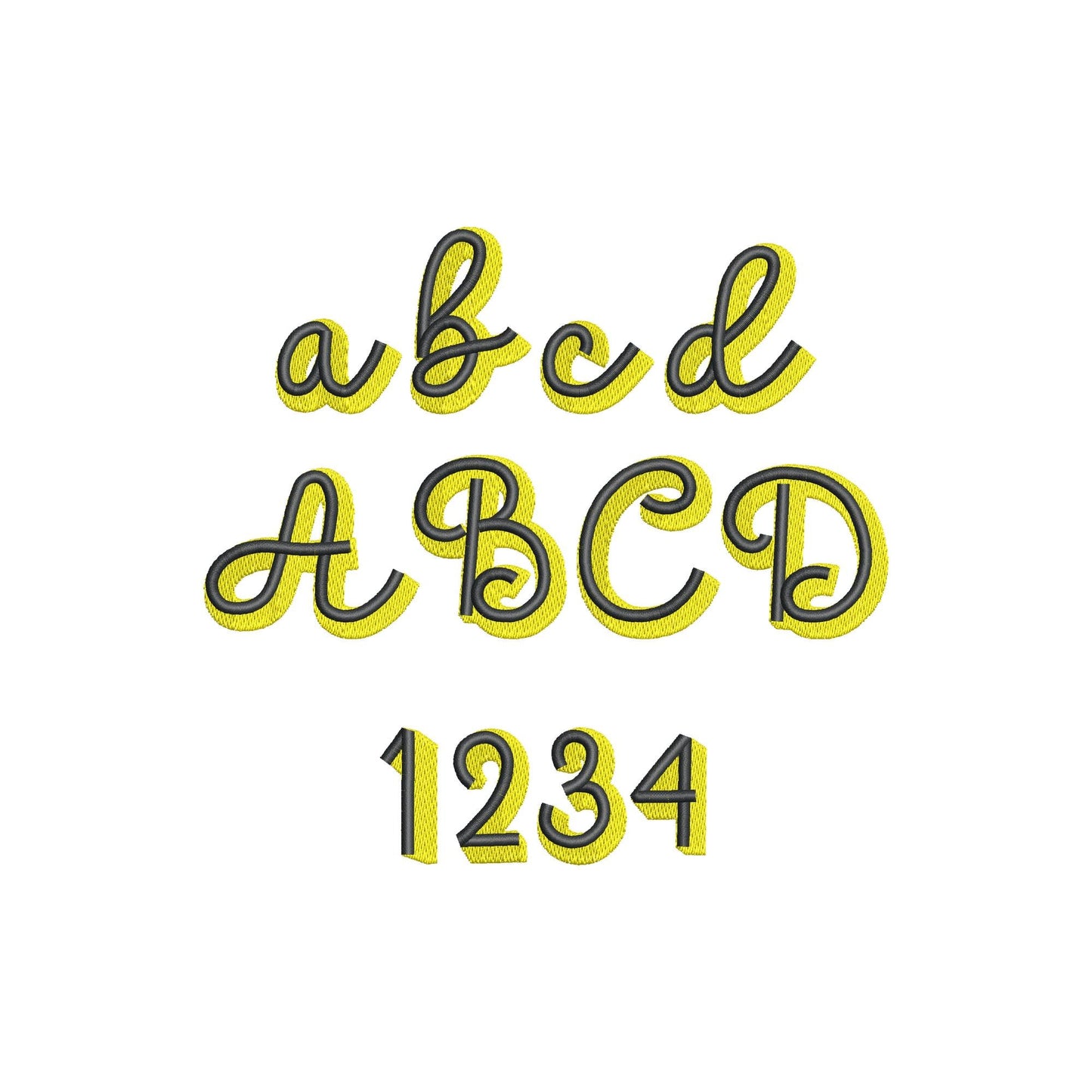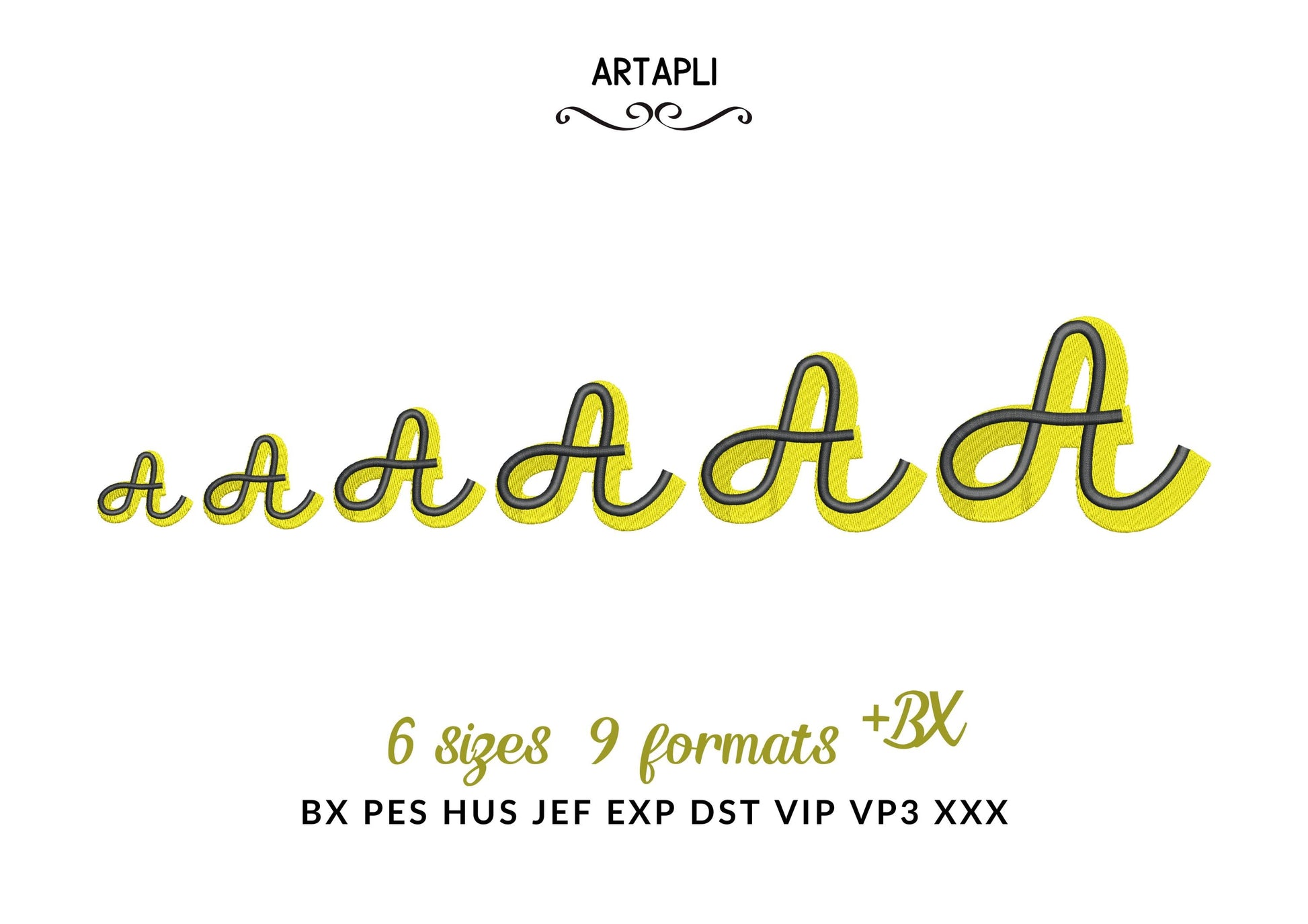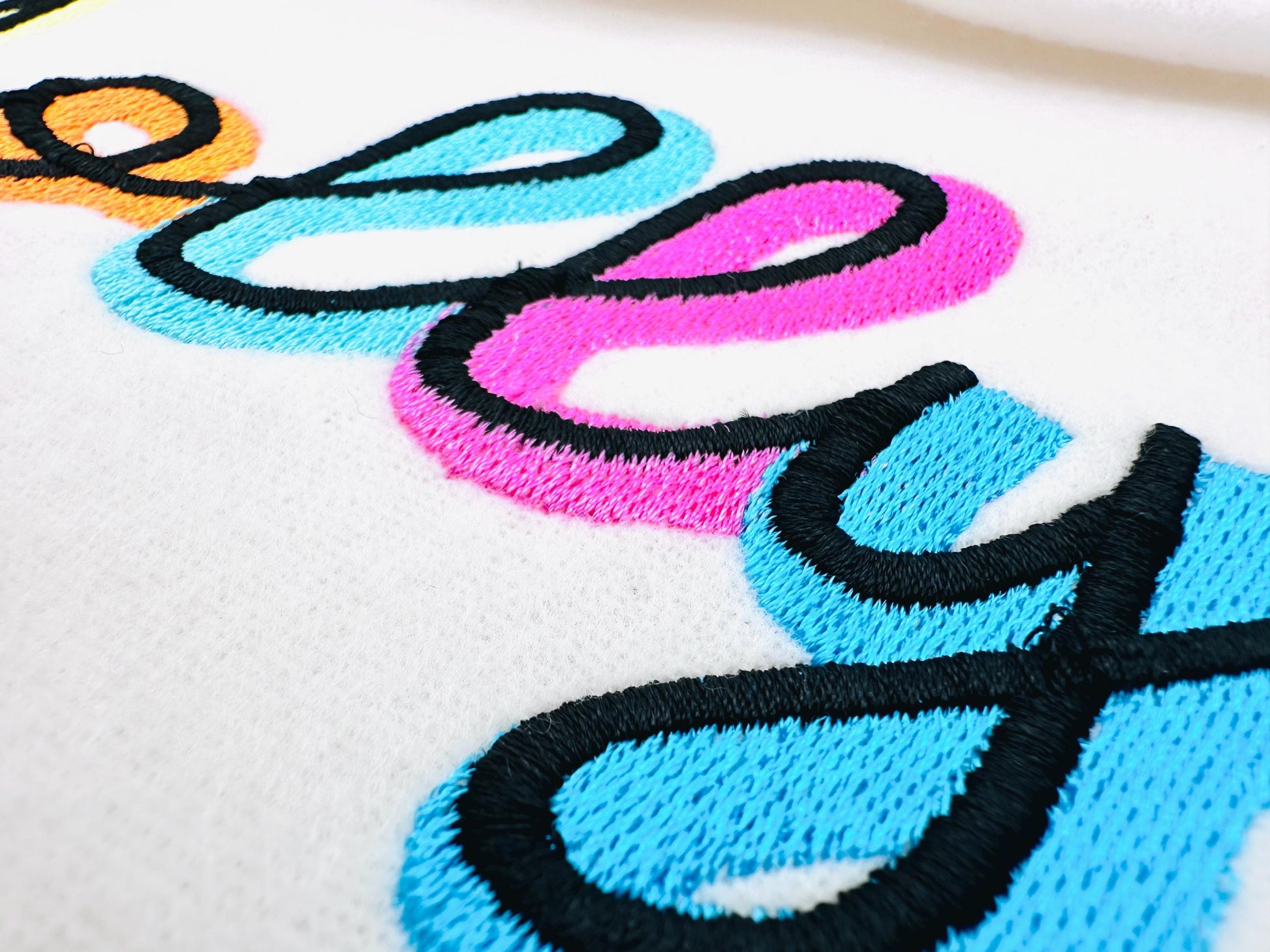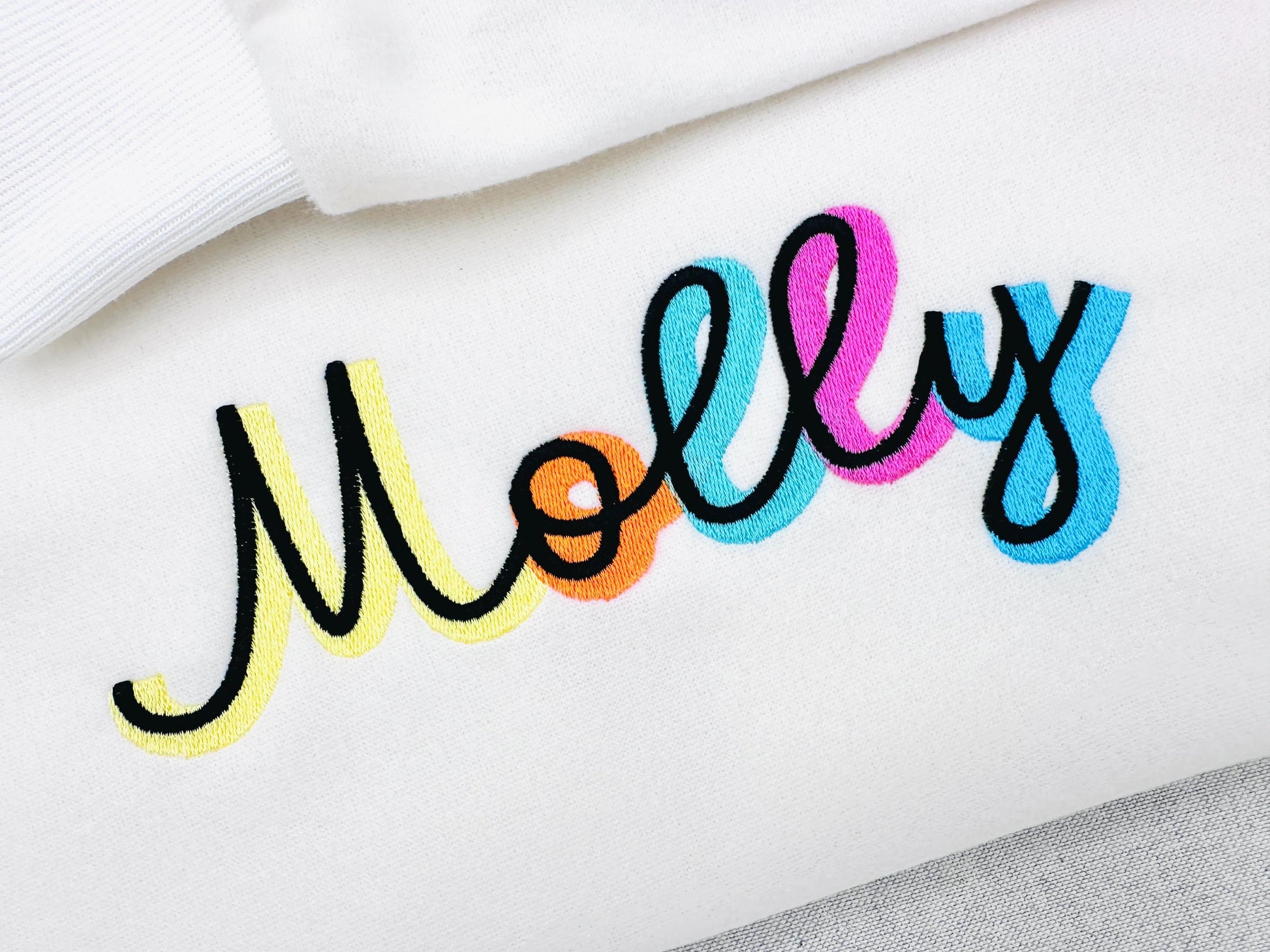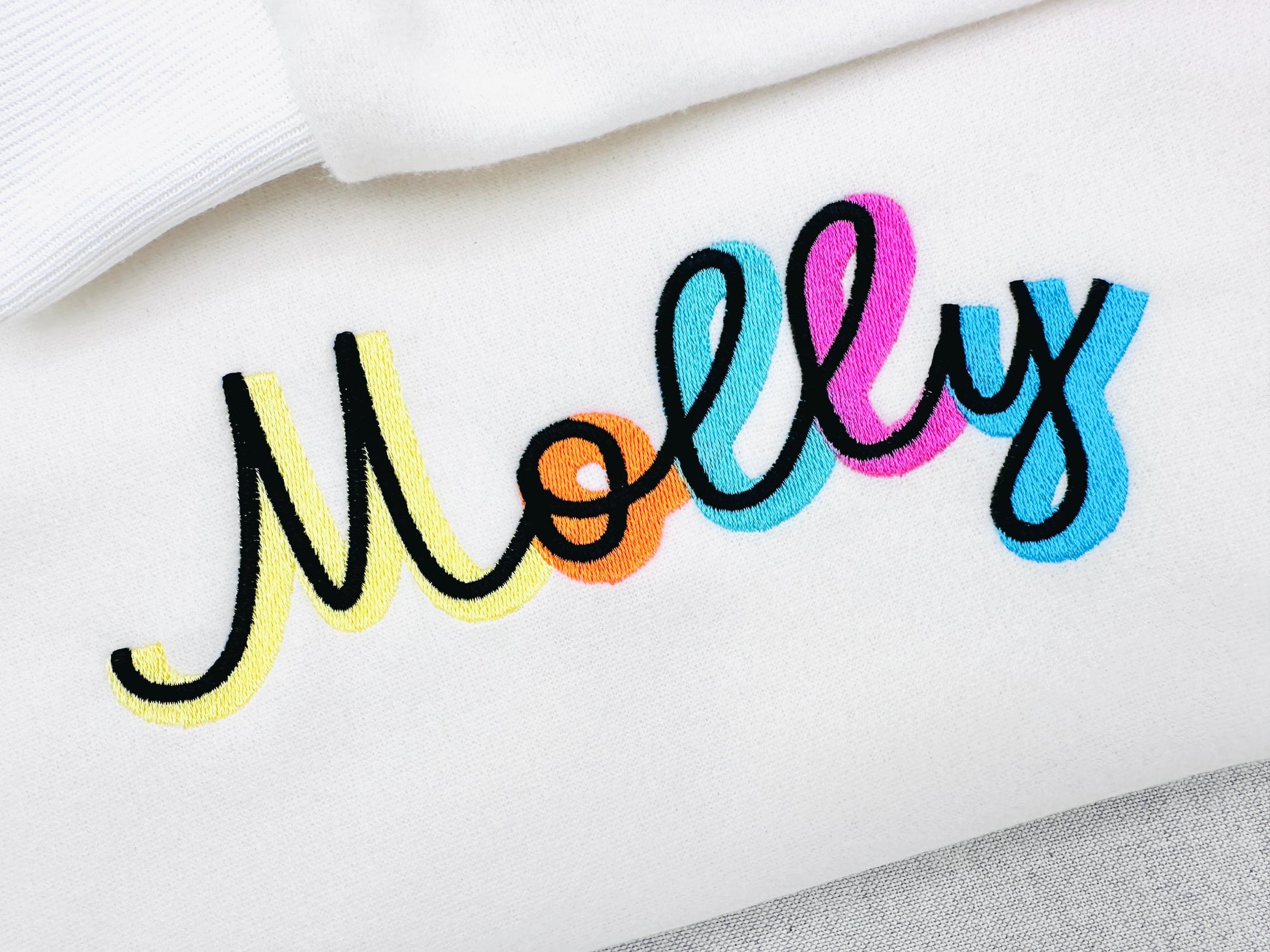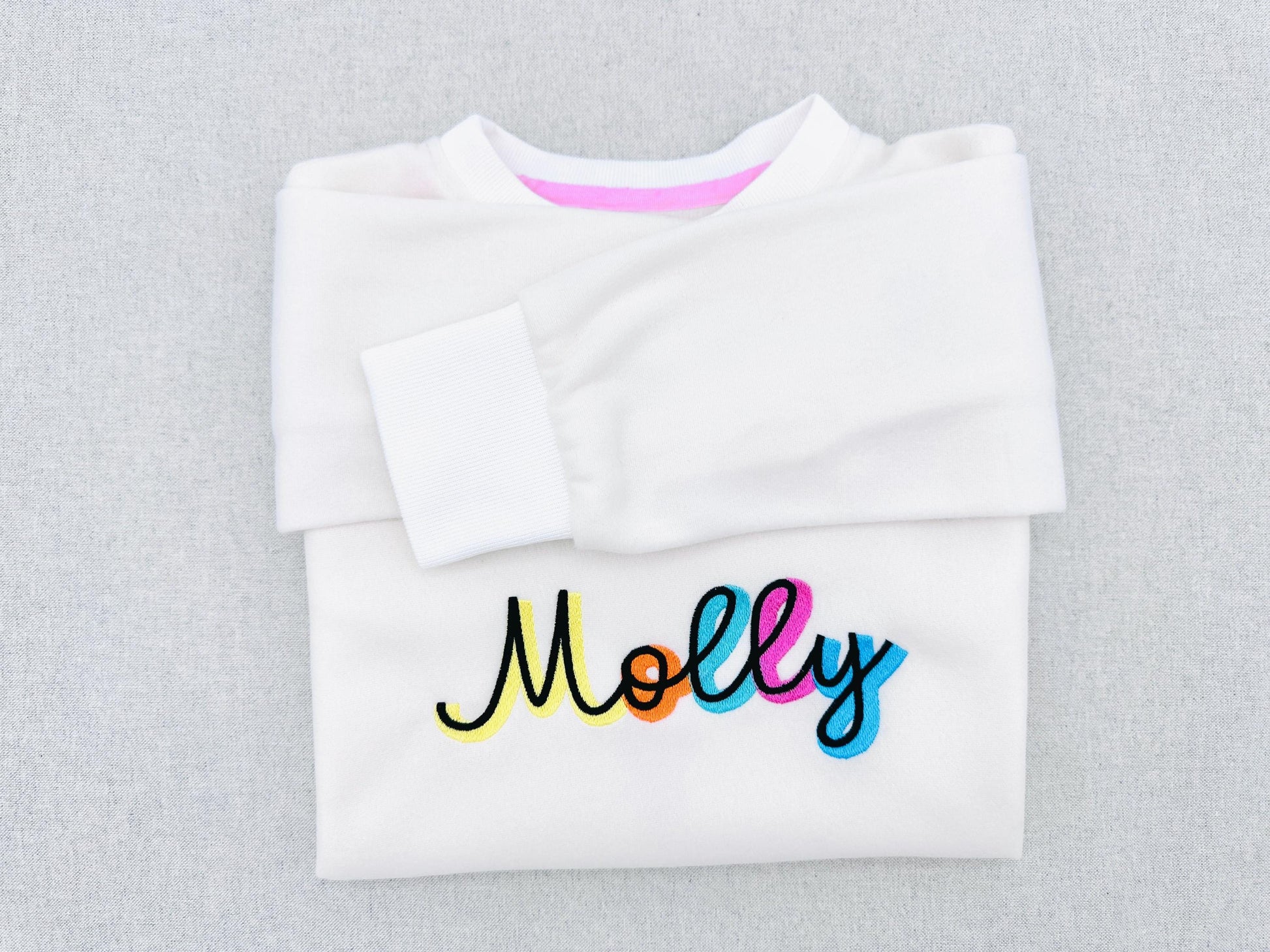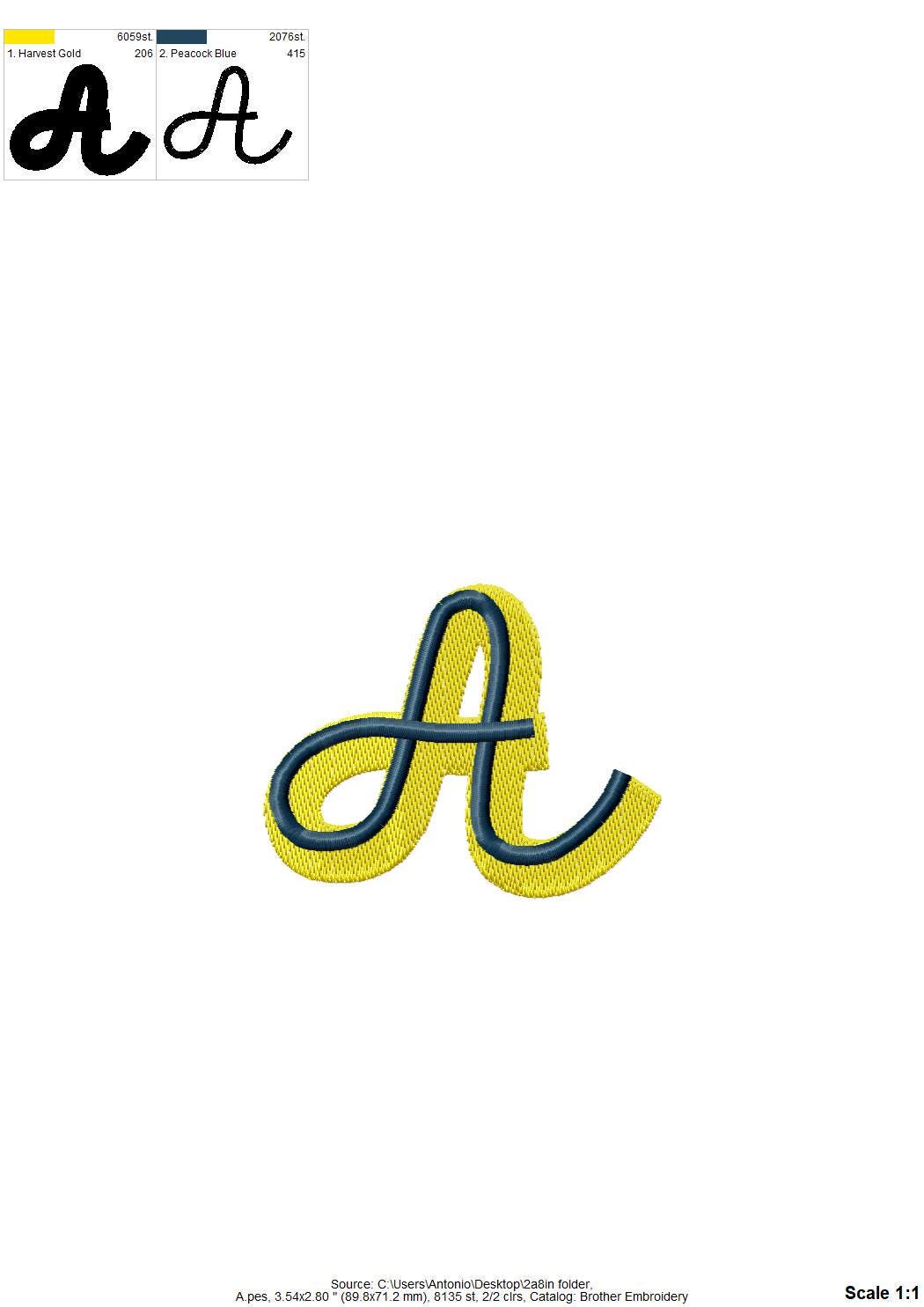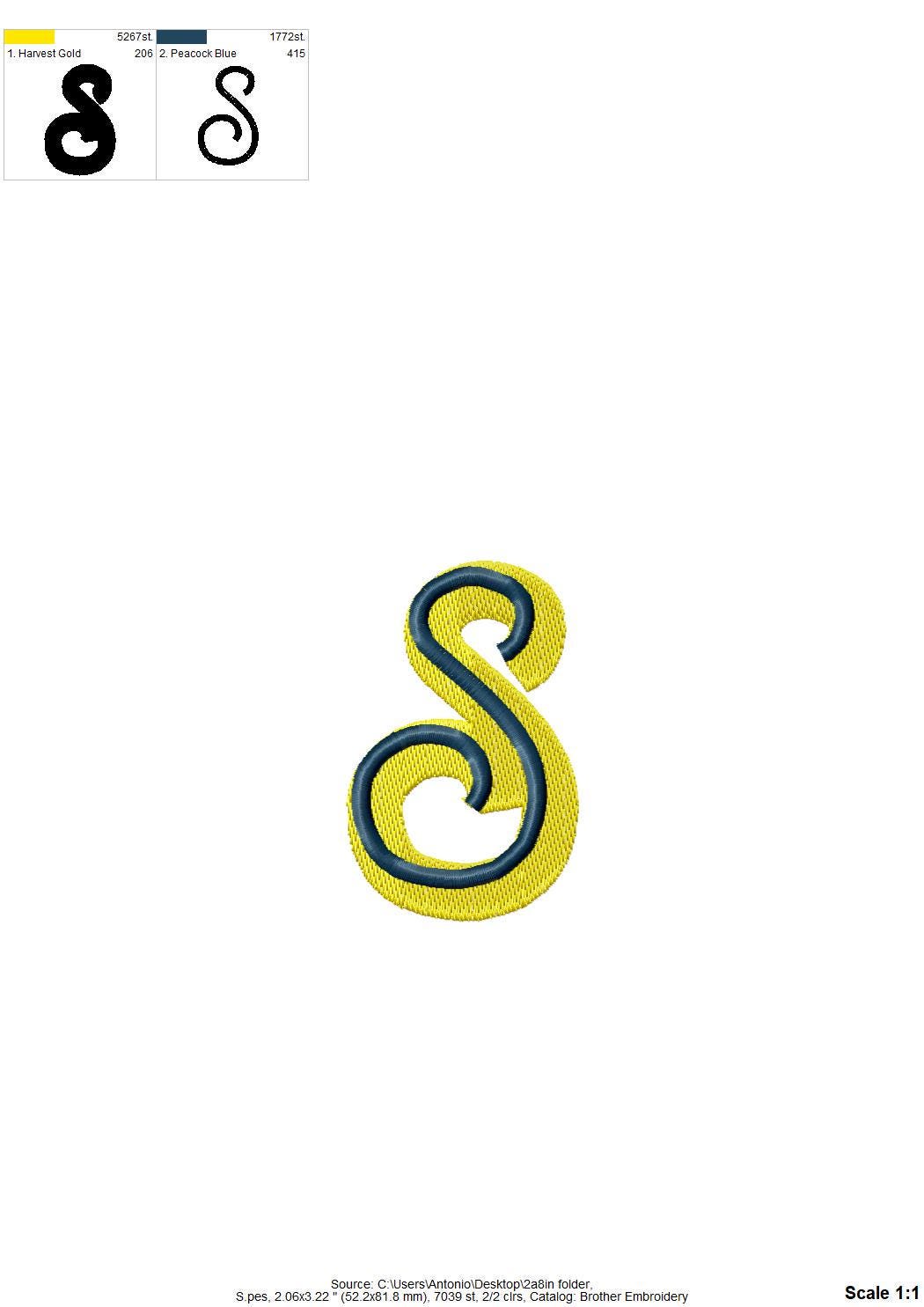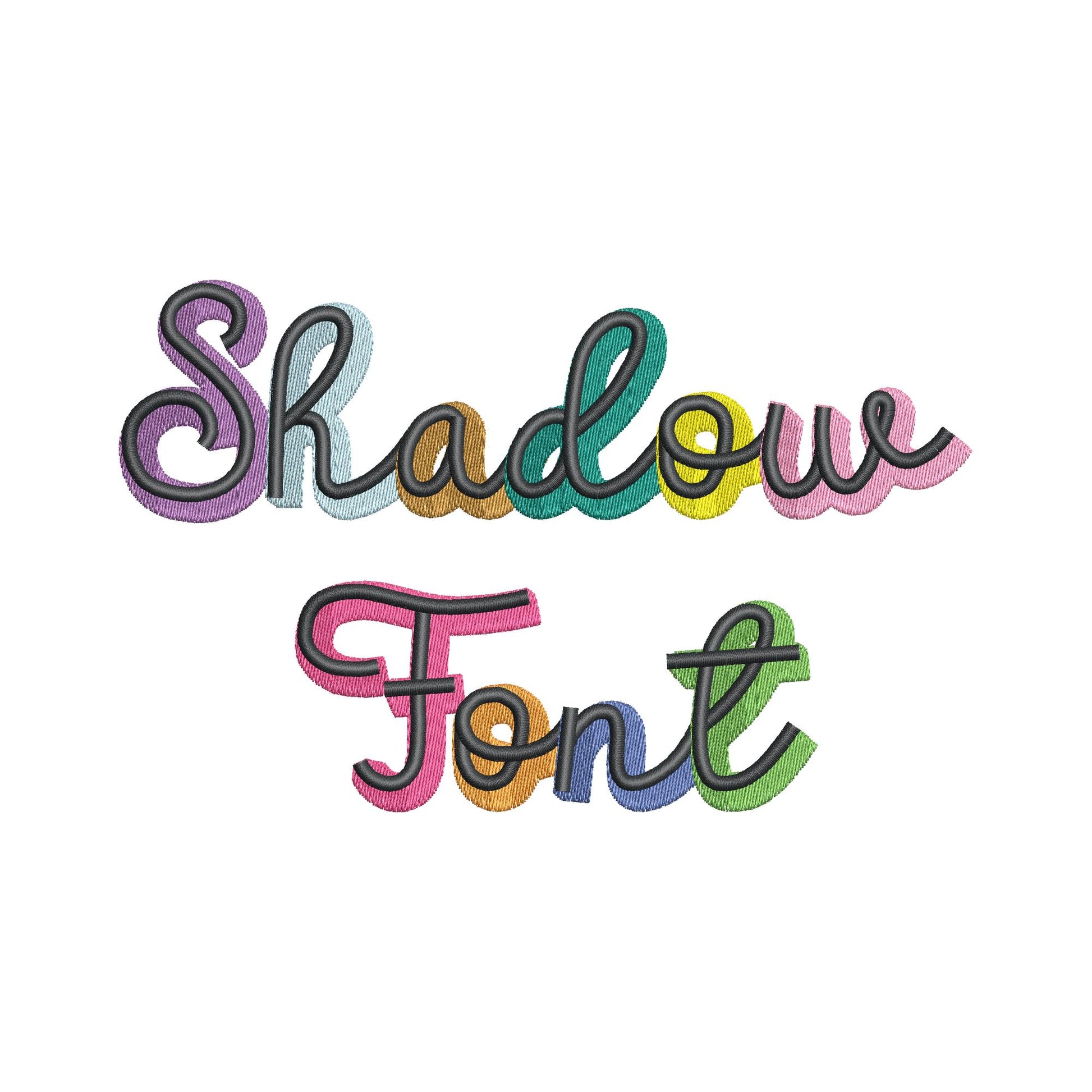
Handwritten Bouncy Shadow Font
Or click to open the linkA bouncy handwritten script with a two-color shadow, in fill stitch. Bold and fun for names, monograms and shirts.
The letters come in six sizes: 1.2, 1.5, 1.9, 2.3, 2.8 and 3.4 inches. Each letter is a fill stitch with a second-color shadow behind it. Includes uppercase and lowercase letters A to Z, numbers 0 to 9 and punctuation.
- Bouncy 2-color shadow script font, fill stitch
- 6 sizes, 1.2 to 3.4 in